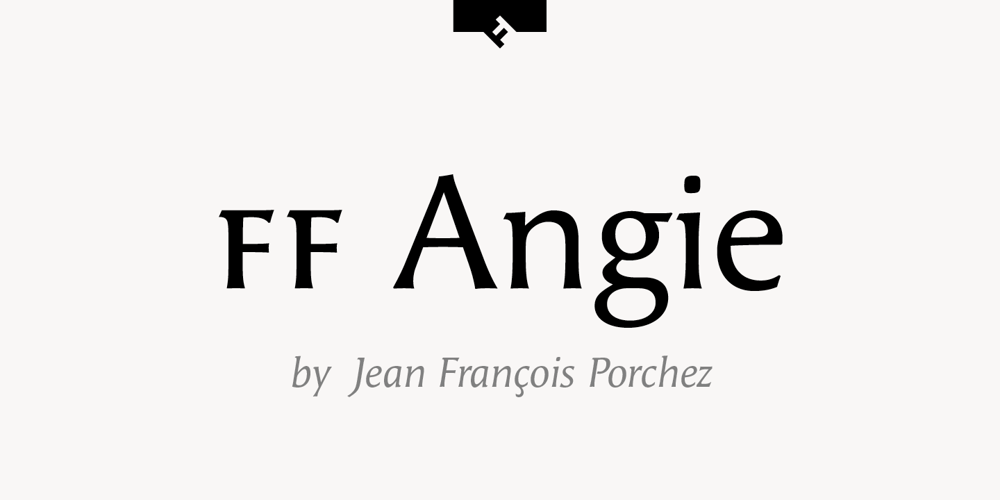
FF Angie
FF Angie font
FF Angie Font Family was designed by Jean François Porchez and published by FontFont. FF Angie contains 11 styles and family package options. FF Angie Regular won the Brattinga prize at the 1990 Morisawa awards in Japan.